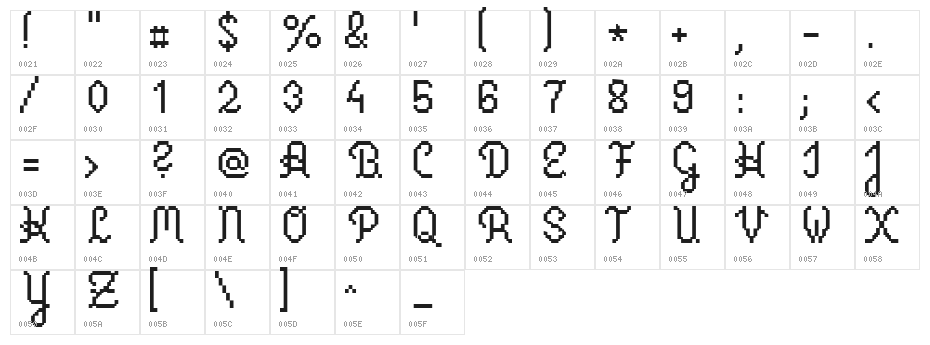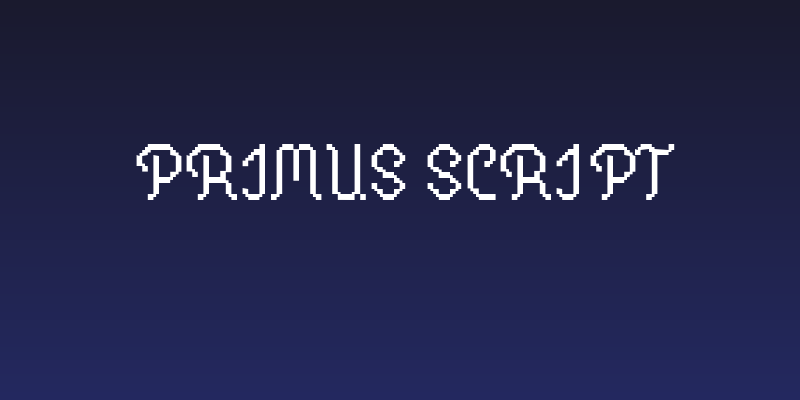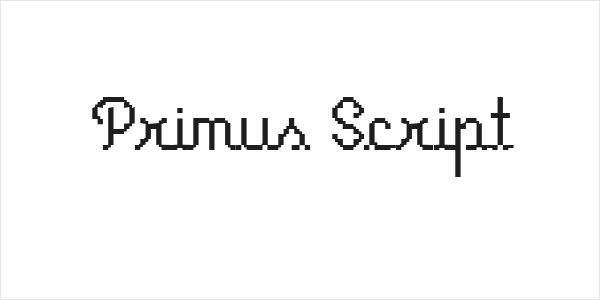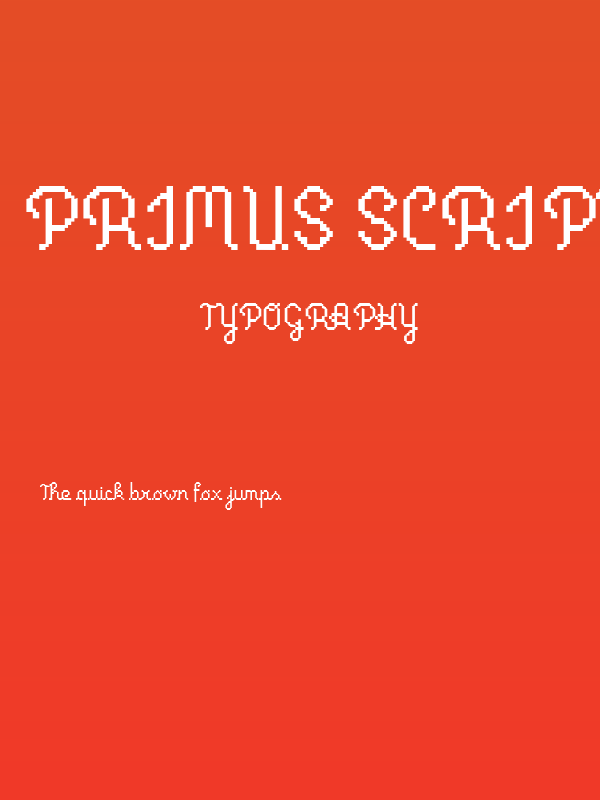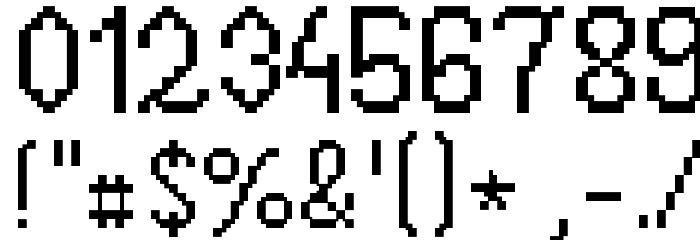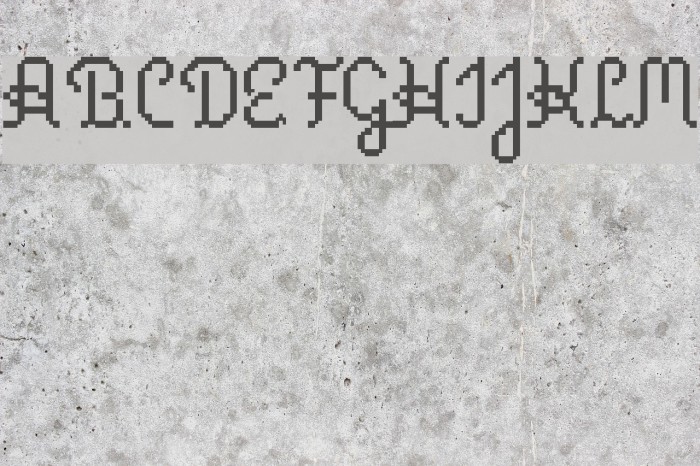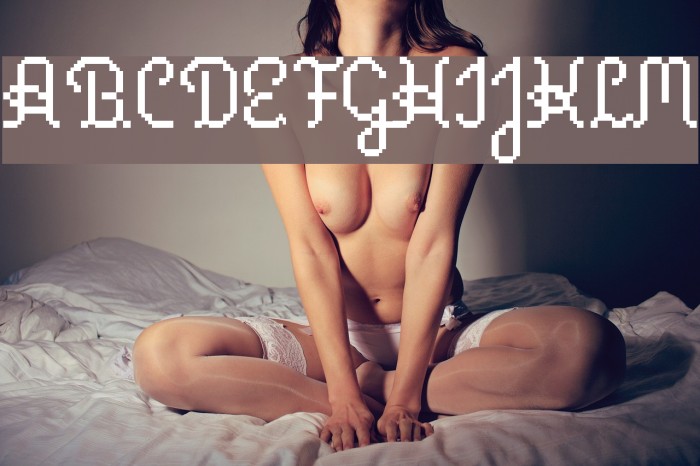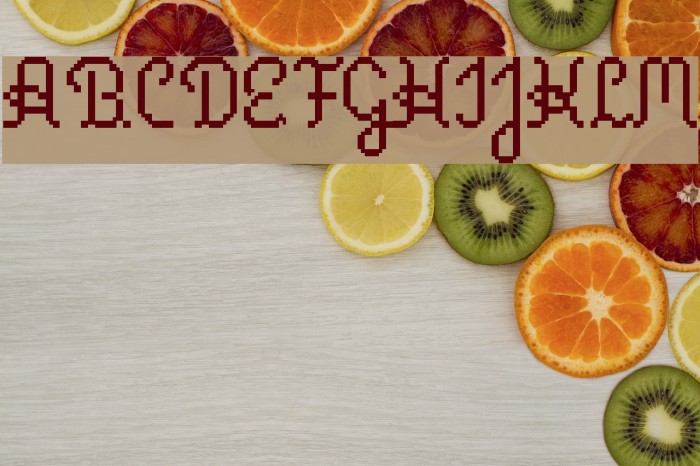
Primus Script Font
Primus Script Description
This font features a unique blend of script and pixelated design, giving it a retro digital feel. The uppercase letters are characterized by their angular, geometric shapes, while the lowercase letters maintain a more fluid, cursive style. Numbers and special characters follow the same pixelated aesthetic, creating a cohesive look throughout. The font's distinctive style makes it stand out, with each character appearing as if it were crafted from a series of connected dots or pixels. This design choice gives it a playful yet structured appearance, suitable for projects that require a touch of nostalgia or a digital theme.
| Overall Style | Retro, Digital |
| Use Case | Logos, Posters, Digital Art |
| Proposed Projects | Ideal for video game graphics, retro-themed posters, digital art projects, and creative branding. |